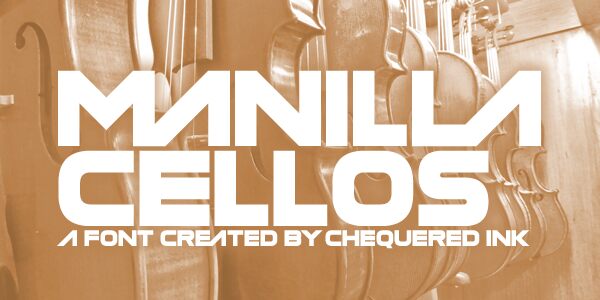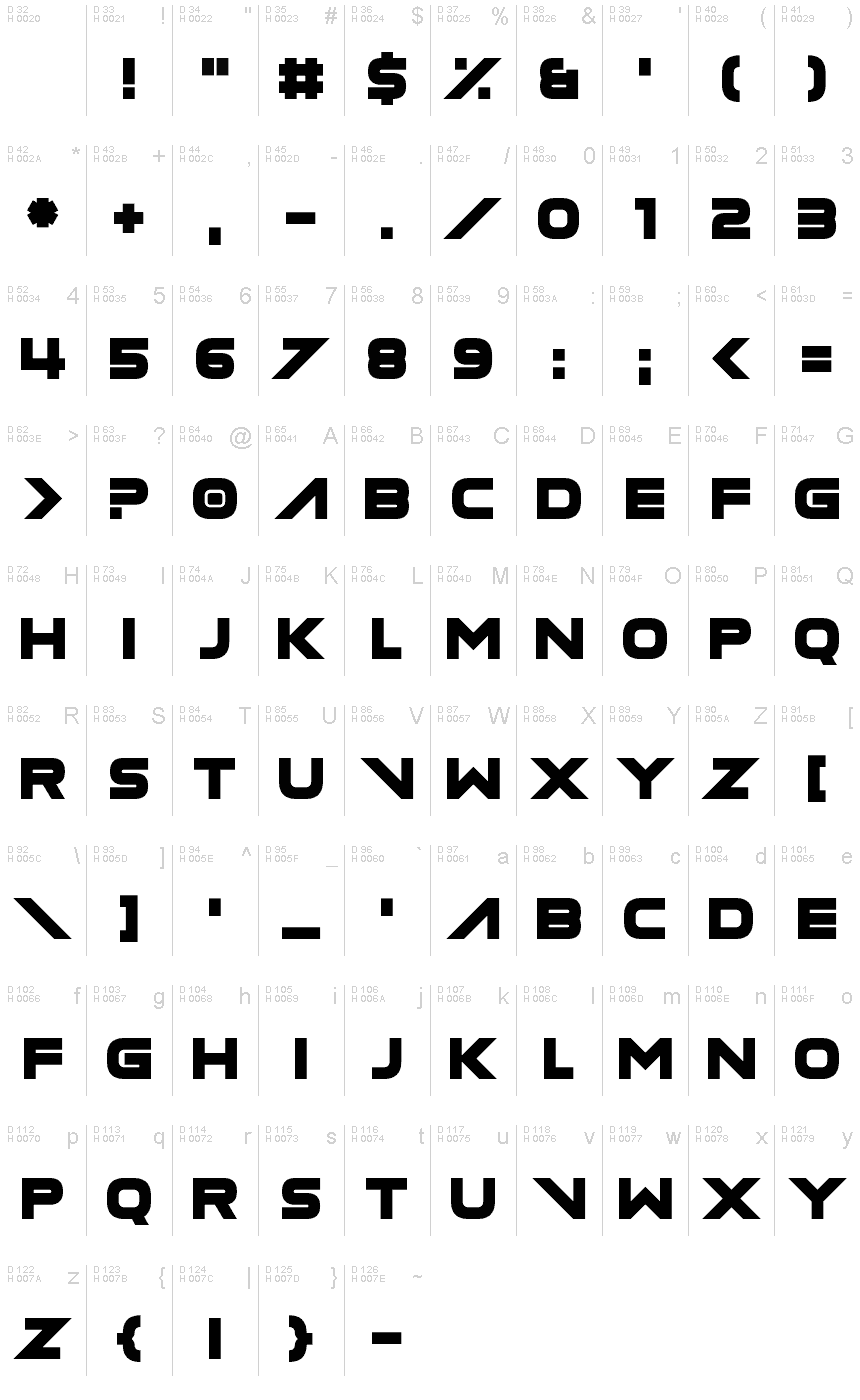
Manilla Cellos
Manilla Cellos is a bold, futuristic display font that exudes a captivating blend of style and personality. Designed by Chequered Ink, this expanded typeface boasts a distinct chiseled appearance, with sharp angles and geometric forms that evoke a sense of technological sophistication. The font's expansive width lends it a powerful, commanding presence, making it an ideal choice for commanding headlines, impactful branding, and eye-catching digital interfaces. Manilla Cellos seamlessly bridges the gap between the sleek aesthetics of contemporary design and the timeless allure of retro-futuristic inspiration.
Its versatility shines in a wide range of applications, from dynamic event posters and striking product packaging to attention-grabbing social media graphics and immersive digital experiences. Manilla Cellos is a font that demands attention, leaving a lasting impression on viewers and elevating any design it graces.